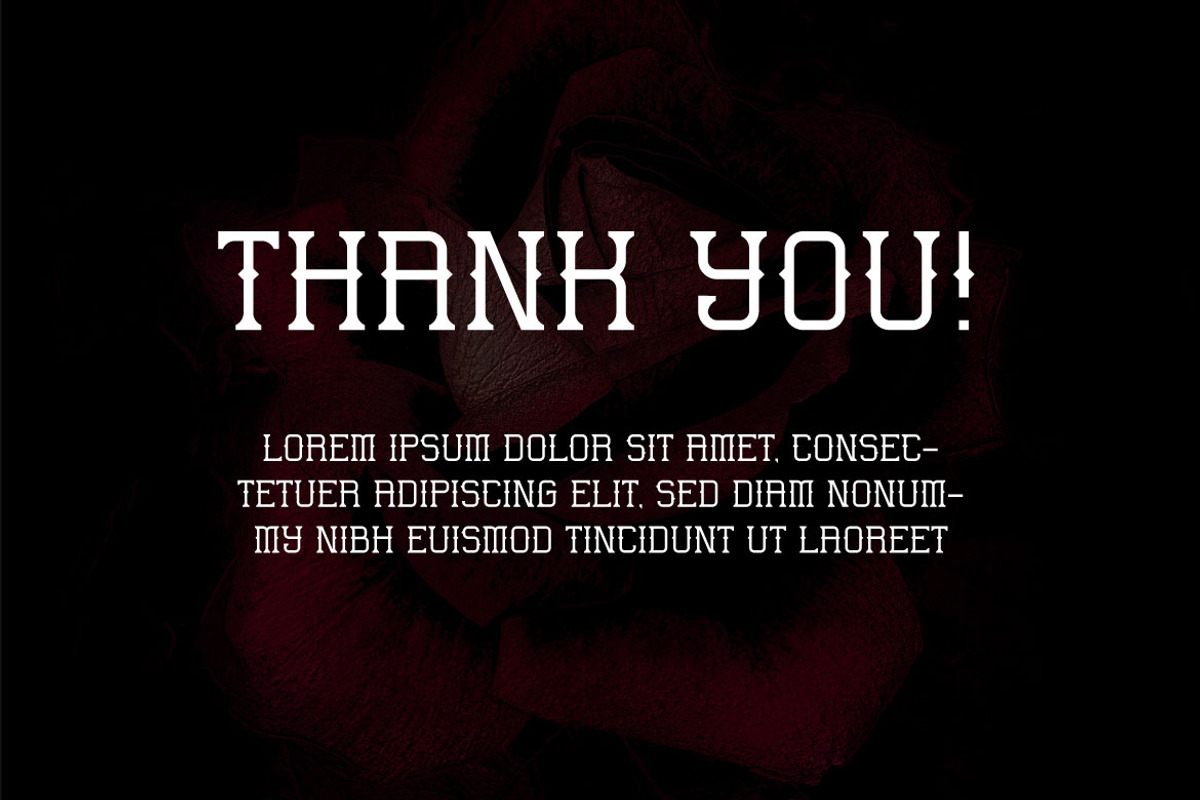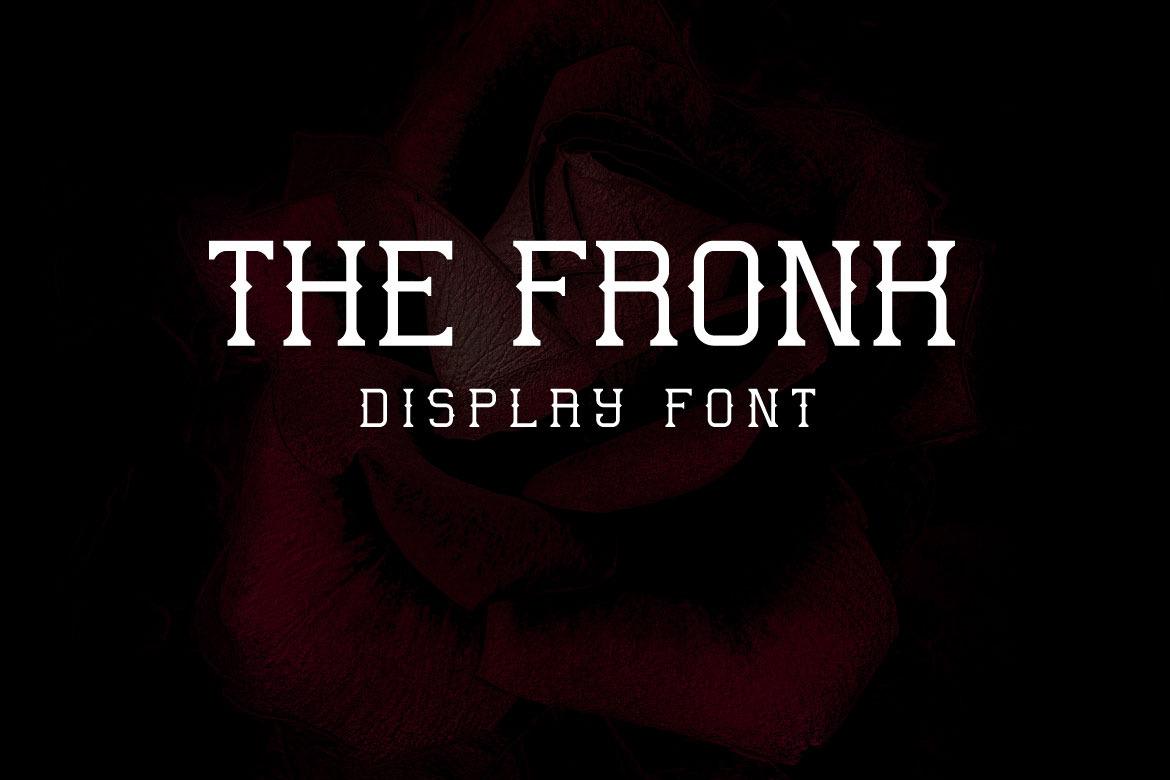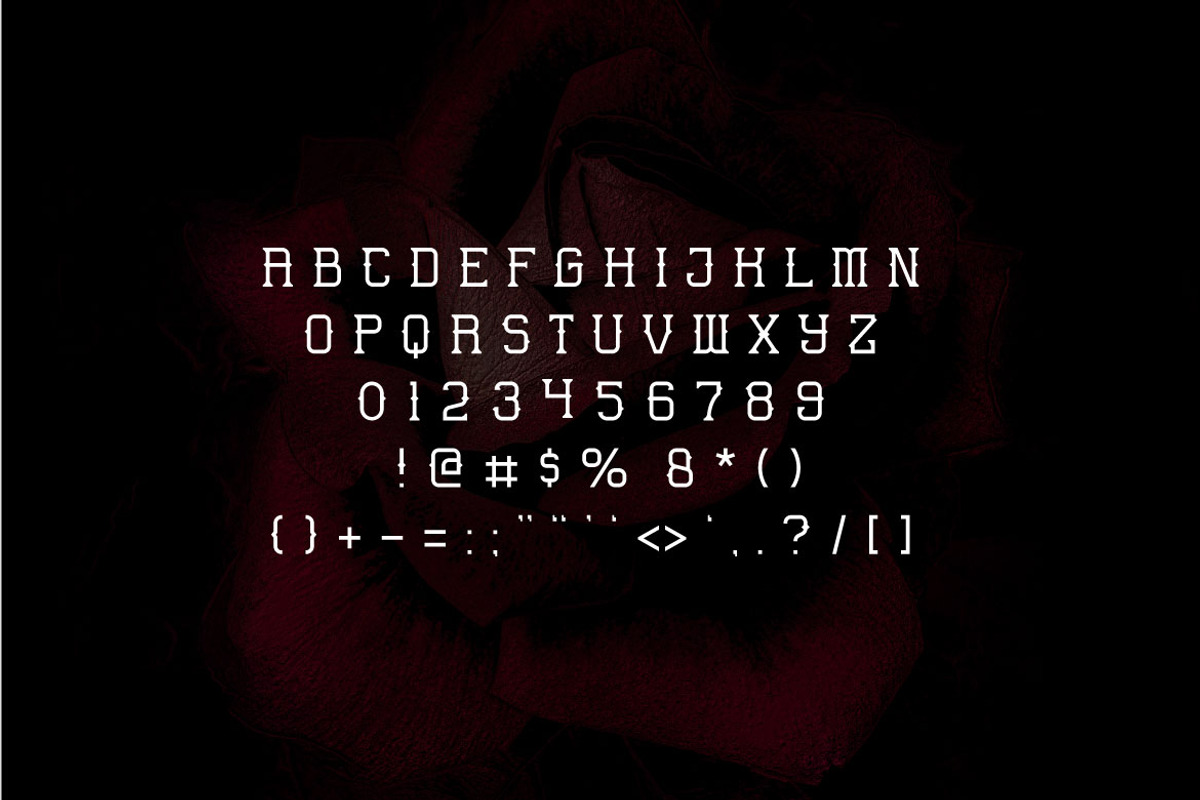
The Fronk - Decorative Display Font
THE FRONK is decorative strong and metal font. It brings a horor and metal looks. It suits perfectly in the horor and metal forms, such as in the title of a band banner, horror poster, magazine, headline, newspaper, office work, book cover, logo, banner, also it can be used in any-scale artwork. The Fronk is on the all capital style.